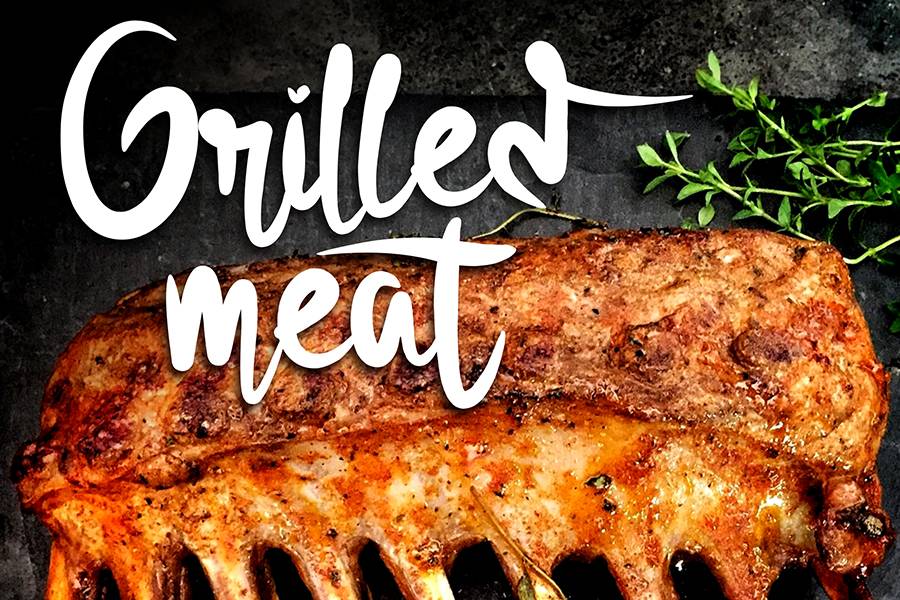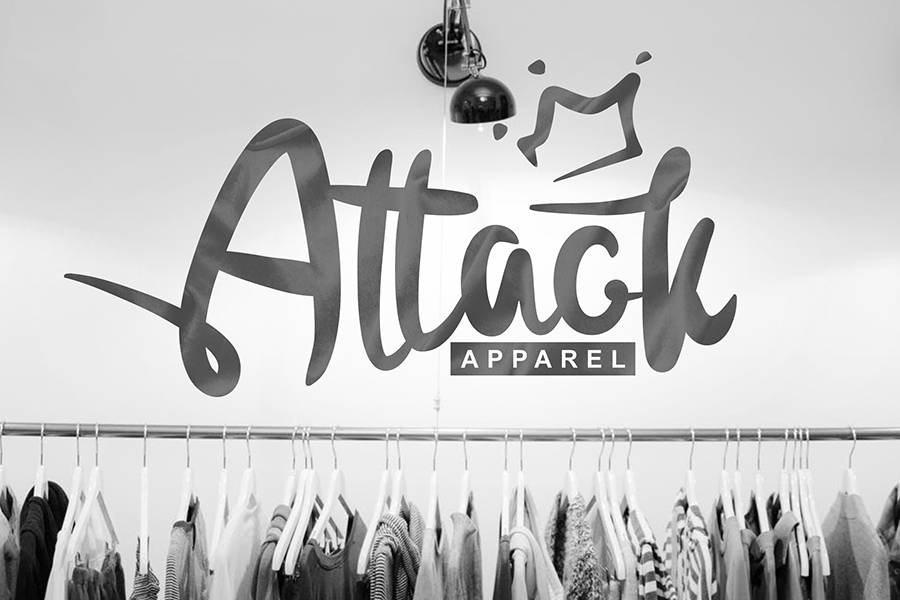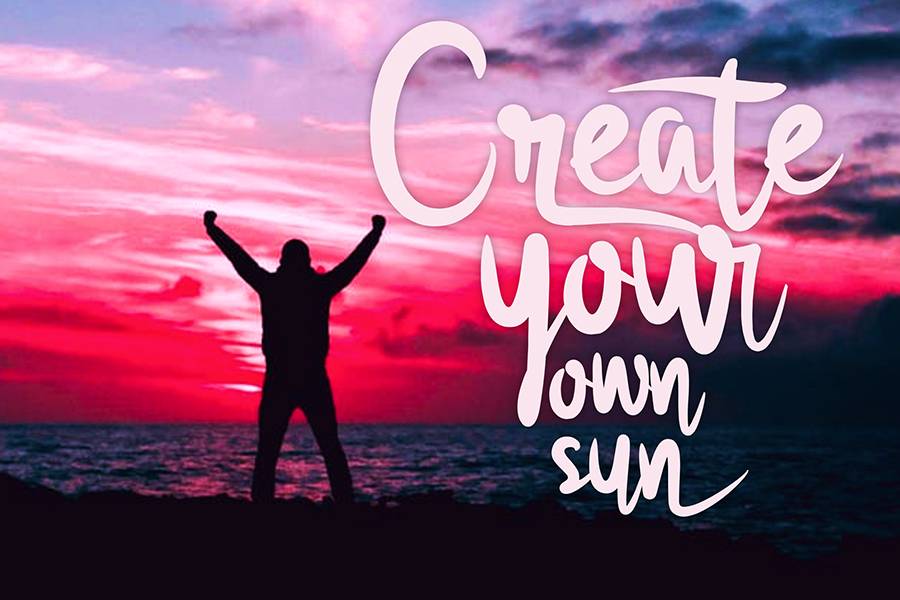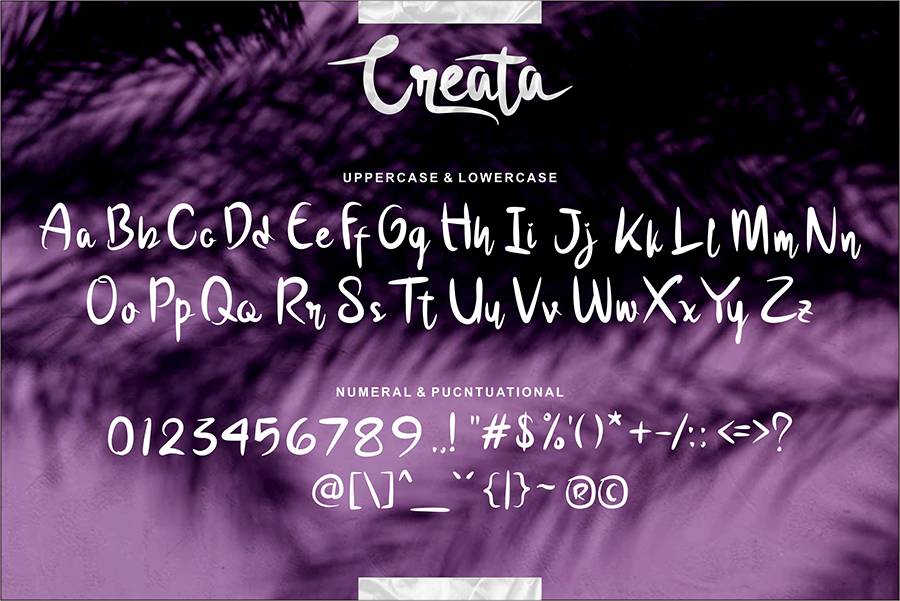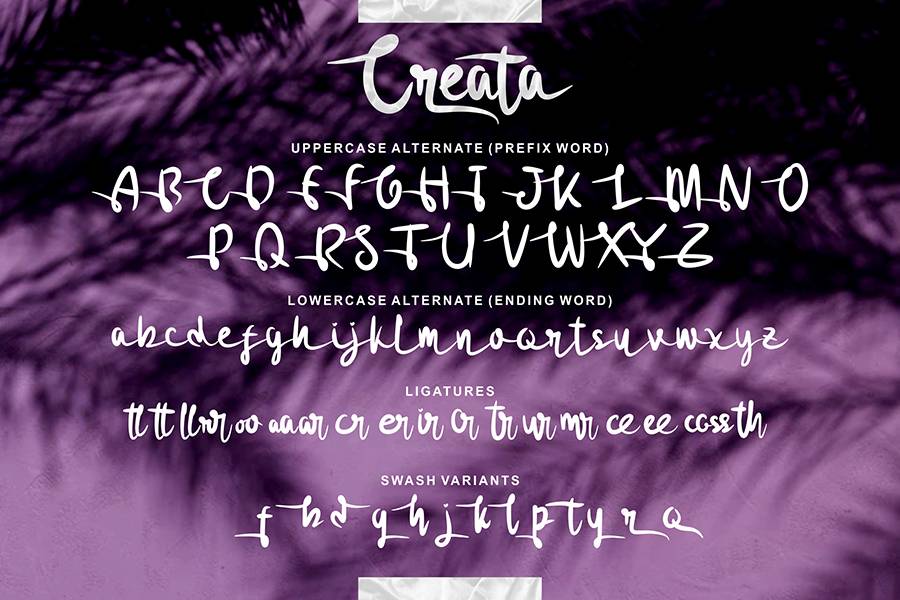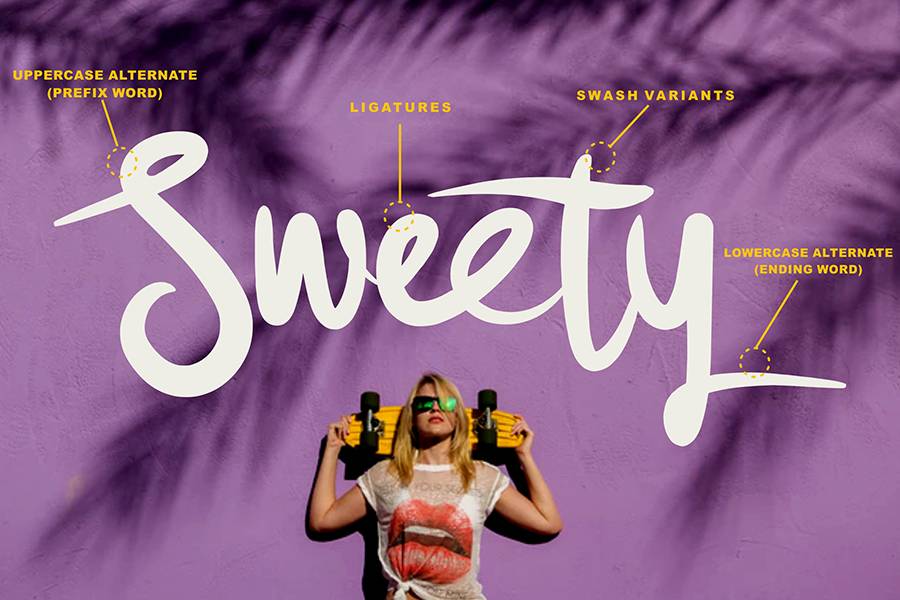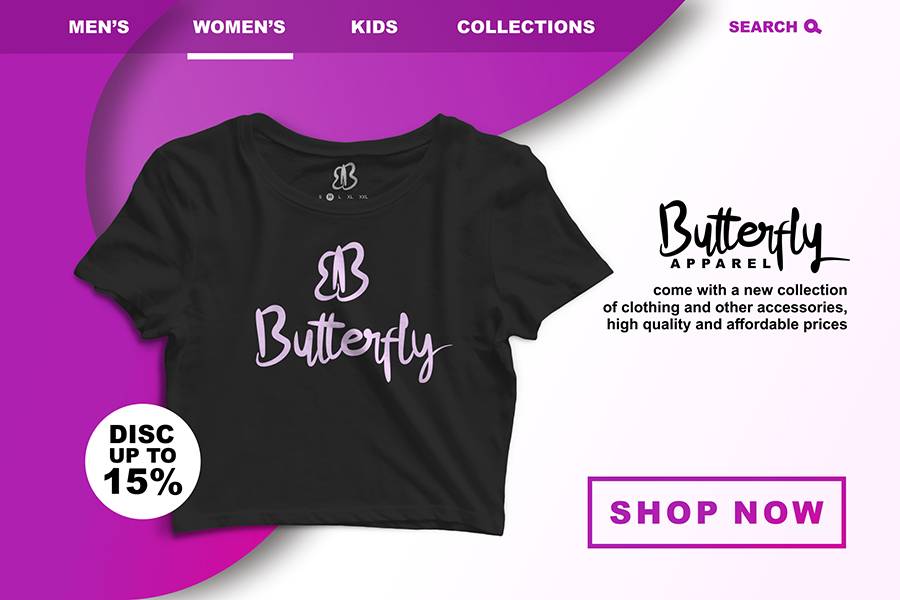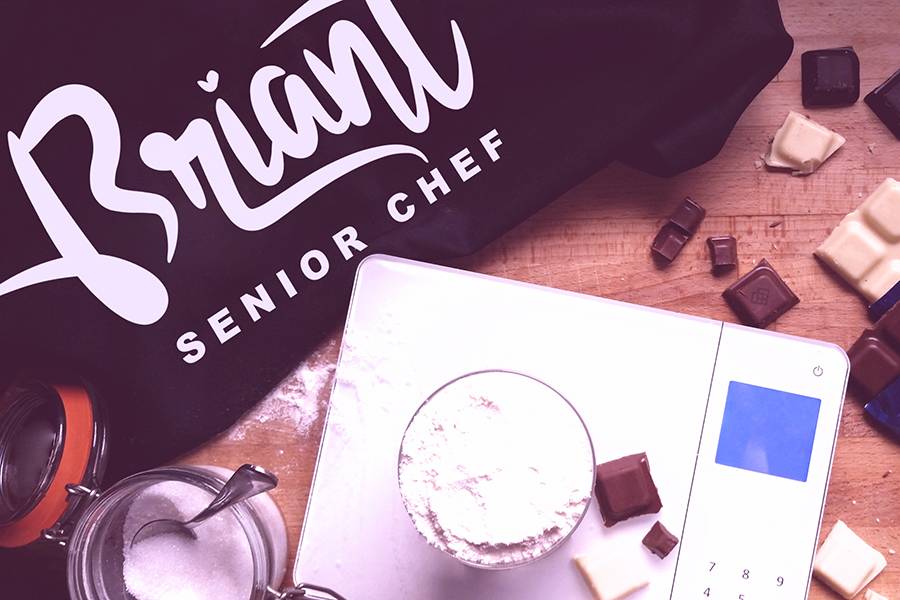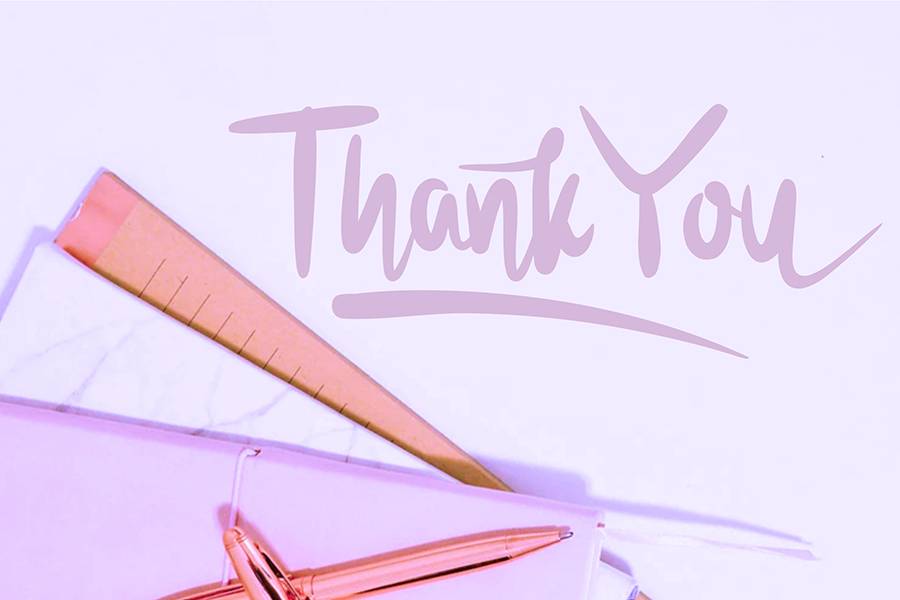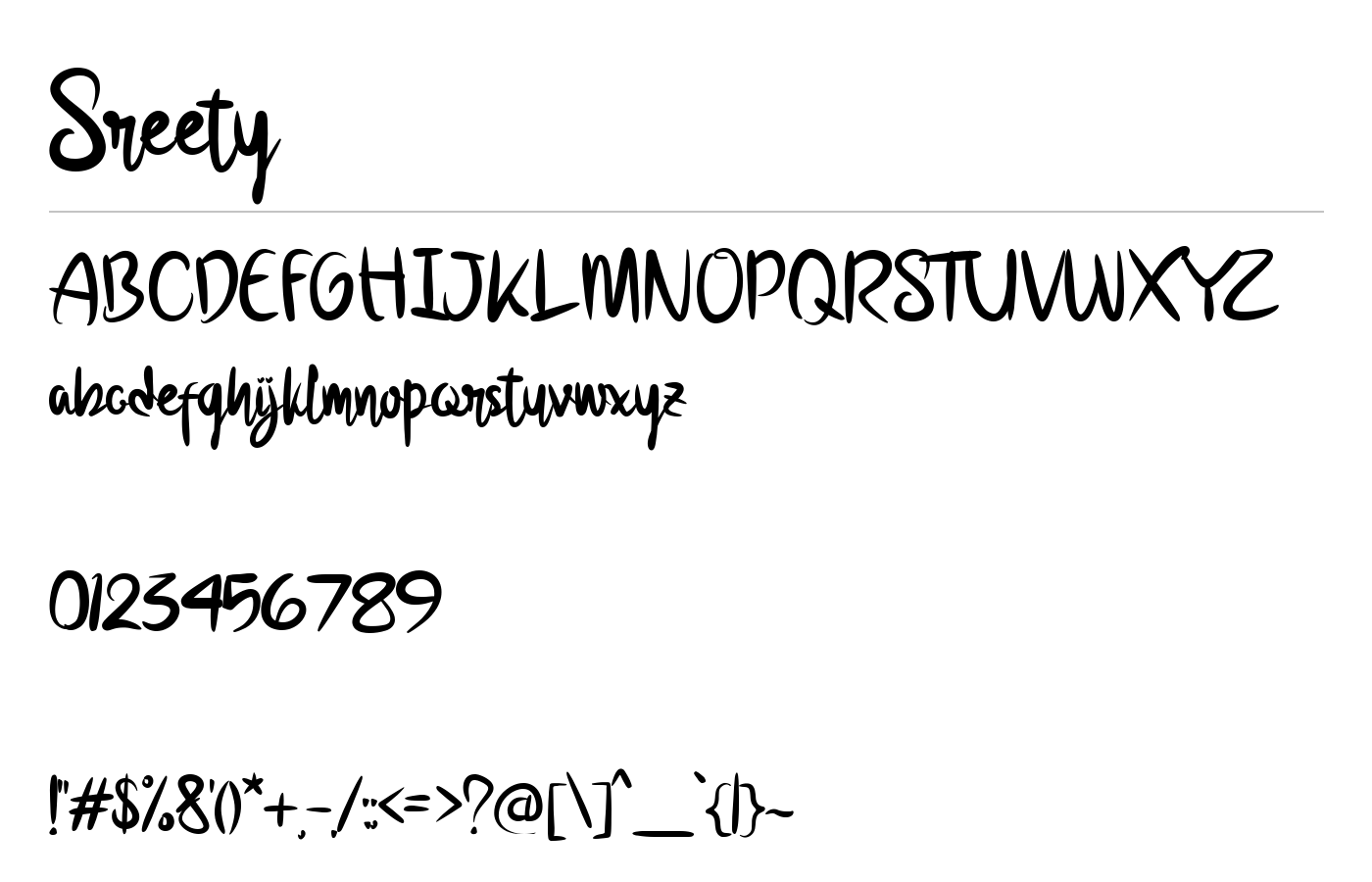
Creata Script Demo is a lively, casual script font with a hand-drawn feel, featuring rounded, slightly irregular strokes that lend it a friendly and approachable personality. Its playful letterforms and varying stroke widths make it ideal for creative branding, informal invitations, or fun headlines where a personal, handcrafted touch is desired. This font works best in settings that want to convey warmth and originality without sacrificing readability.
Creata Script Demo
About Creata Script Demo
| Font family | Creata Script Demo |
| Designer | GlyphStyle 2019 |